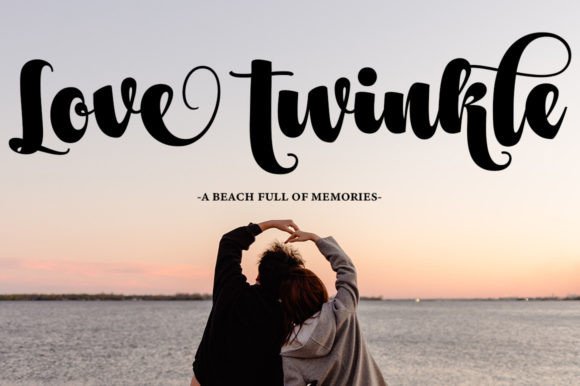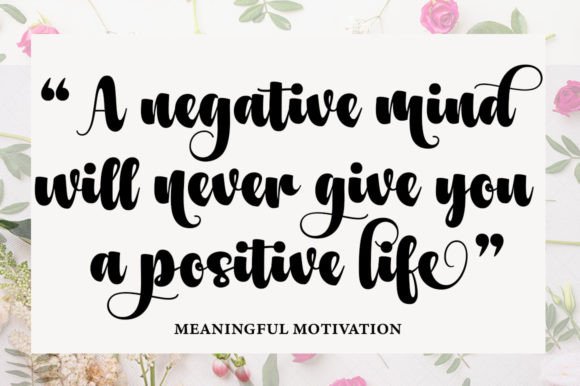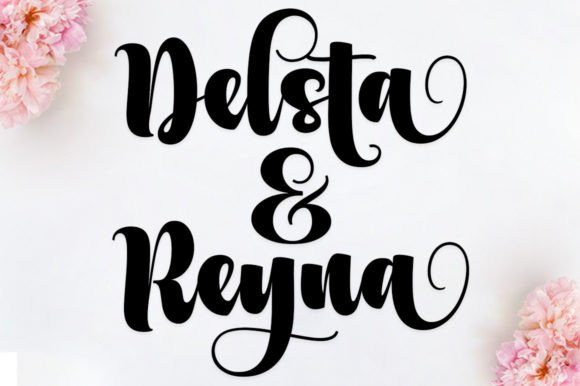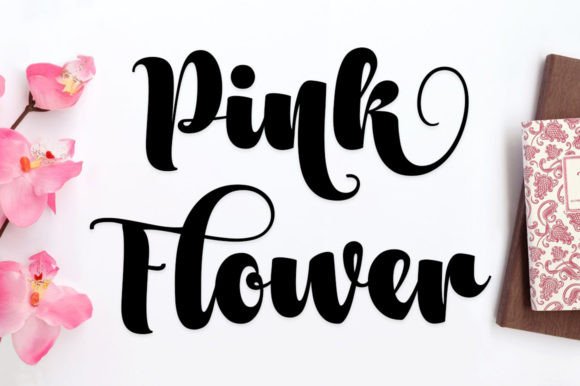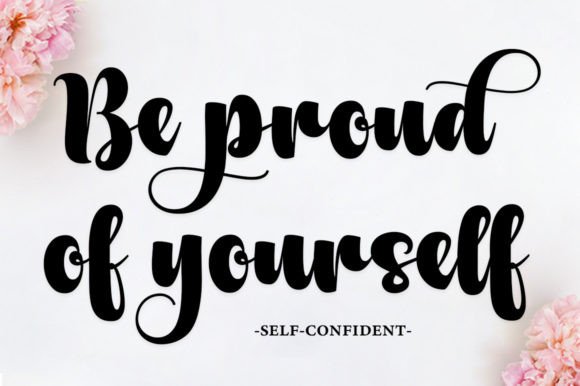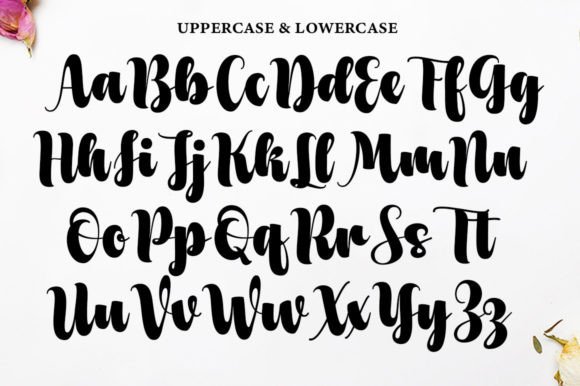
Introducing Glow Font: The Perfect Handwritten Script for Your Creative Projects
Are you looking for a beautiful and elegant script font to add a personal touch to your designs? Look no further than Glow Font! This stunning new font is perfect for a wide range of creative projects, from wall displays and wedding invitations to logos, social media posts, and product packaging. With its unique and elegant handwritten style, Glow Font is sure to make your designs stand out.
What Makes Glow Font Special?
Glow Font is a carefully crafted script font that is designed to bring a touch of elegance and sophistication to your designs. Its beautiful, flowing lines and curves make it perfect for creating eye-catching headlines, titles, and text. Whether you’re a designer, crafty DIY enthusiast, or simply someone who loves to create, Glow Font is the perfect choice for anyone looking to add a personal touch to their projects.
Glow Font is incredibly versatile and can be used for a wide range of projects, including:
- Wall displays and signage
- Advertisements and marketing materials
- Product packaging and design
- Labels and stickers
- Photography and watermarks
- Invitations and party decorations
- Stationery and greeting cards
Why Choose Glow Font?
There are many reasons why Glow Font is the perfect choice for your creative projects. Here are just a few:
- Unique and elegant style: Glow Font has a unique and elegant handwritten style that is sure to make your designs stand out.
- High-quality design: The font is carefully crafted with attention to detail, ensuring that it looks great in any size or format.
- Versatile: The font can be used for a wide range of projects, from personal to commercial.
Tips for Using Glow Font
Here are a few tips for using Glow Font in your designs:
- Use it for headlines and titles: Glow Font is perfect for creating eye-catching headlines and titles that will grab attention.
- Experiment with different sizes and colors: Try out different sizes and colors to see what works best for your design.
- Pair it with other fonts: Glow Font looks great when paired with other fonts, so don’t be afraid to experiment with different combinations.
- Use it for branding and logos: Glow Font is perfect for creating unique and memorable logos and branding.